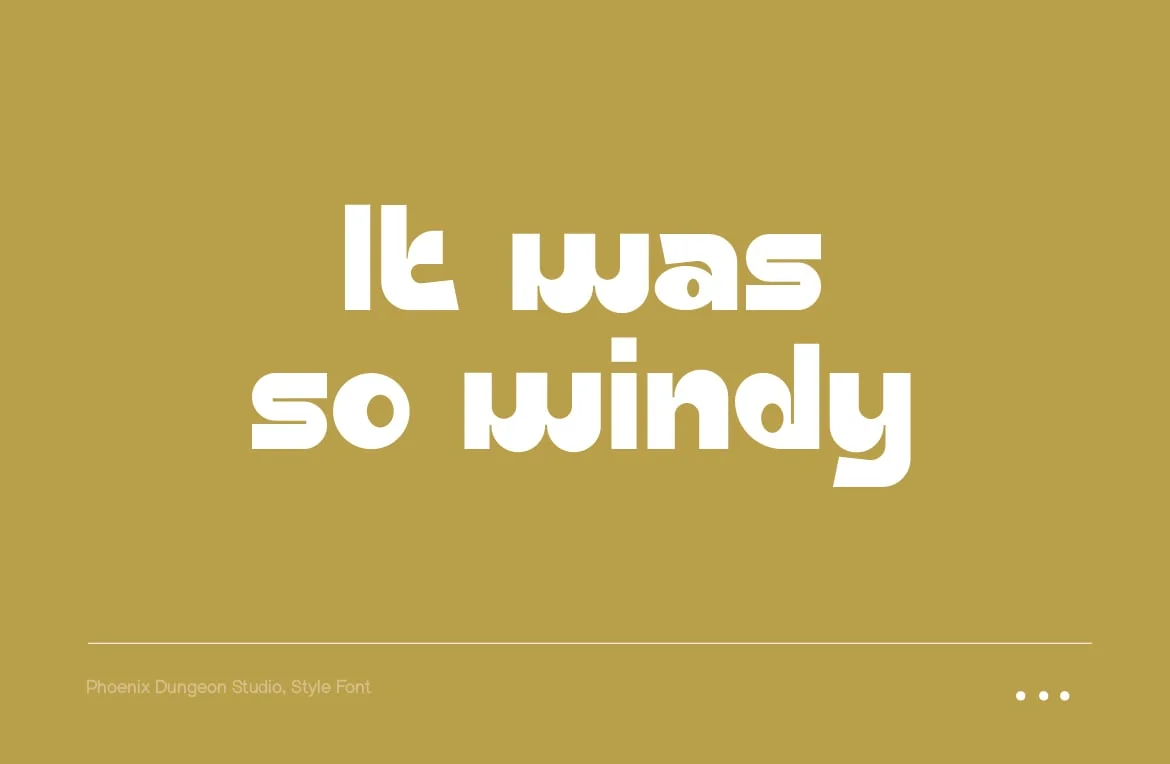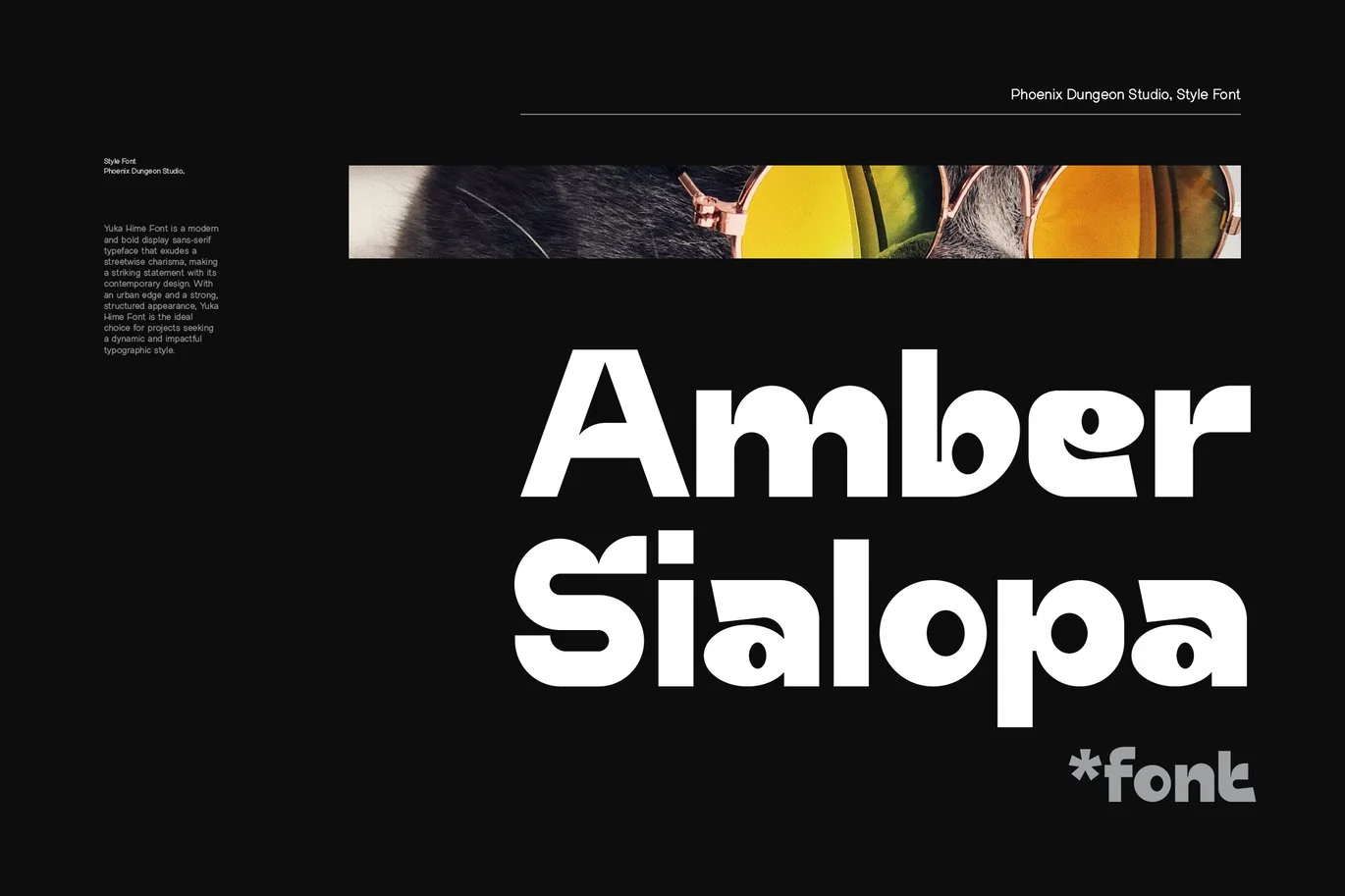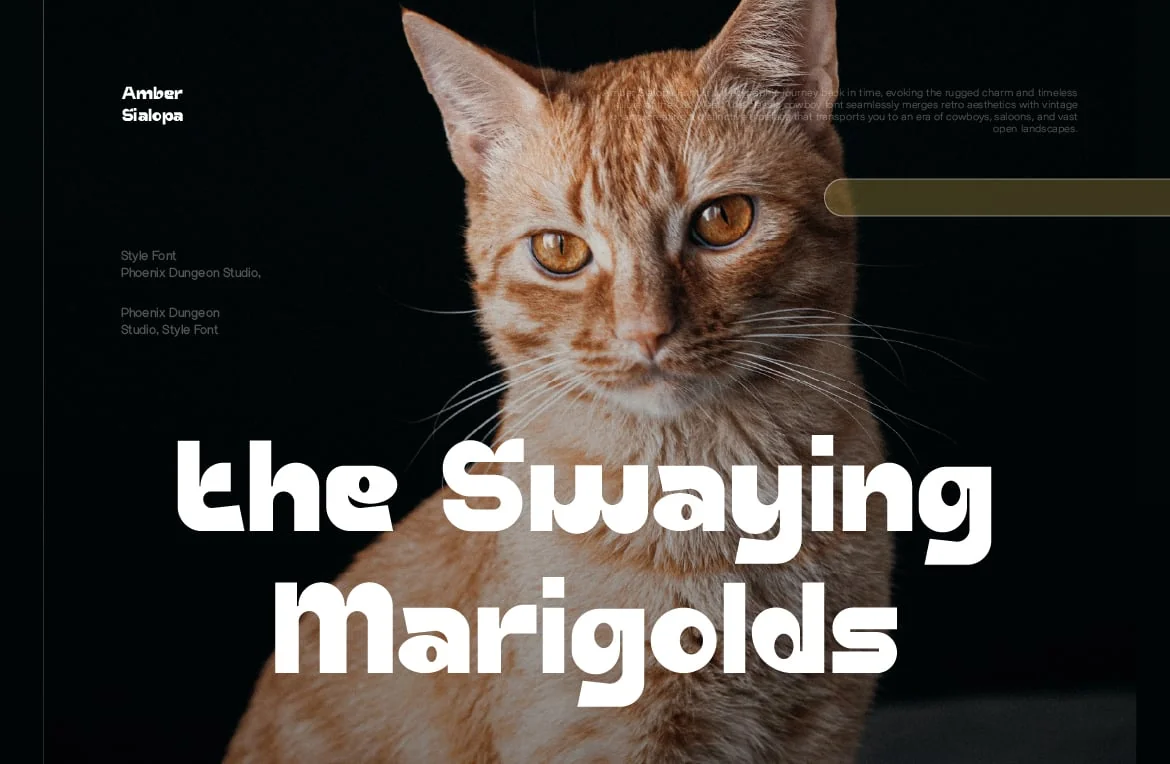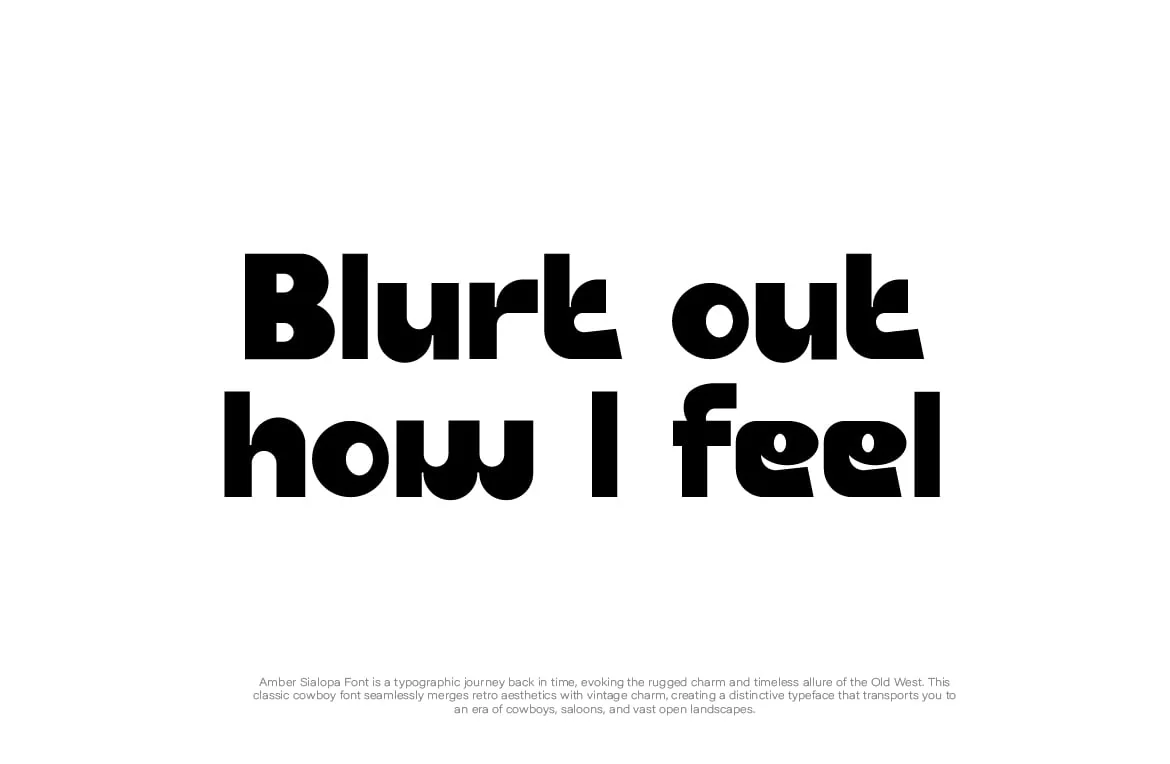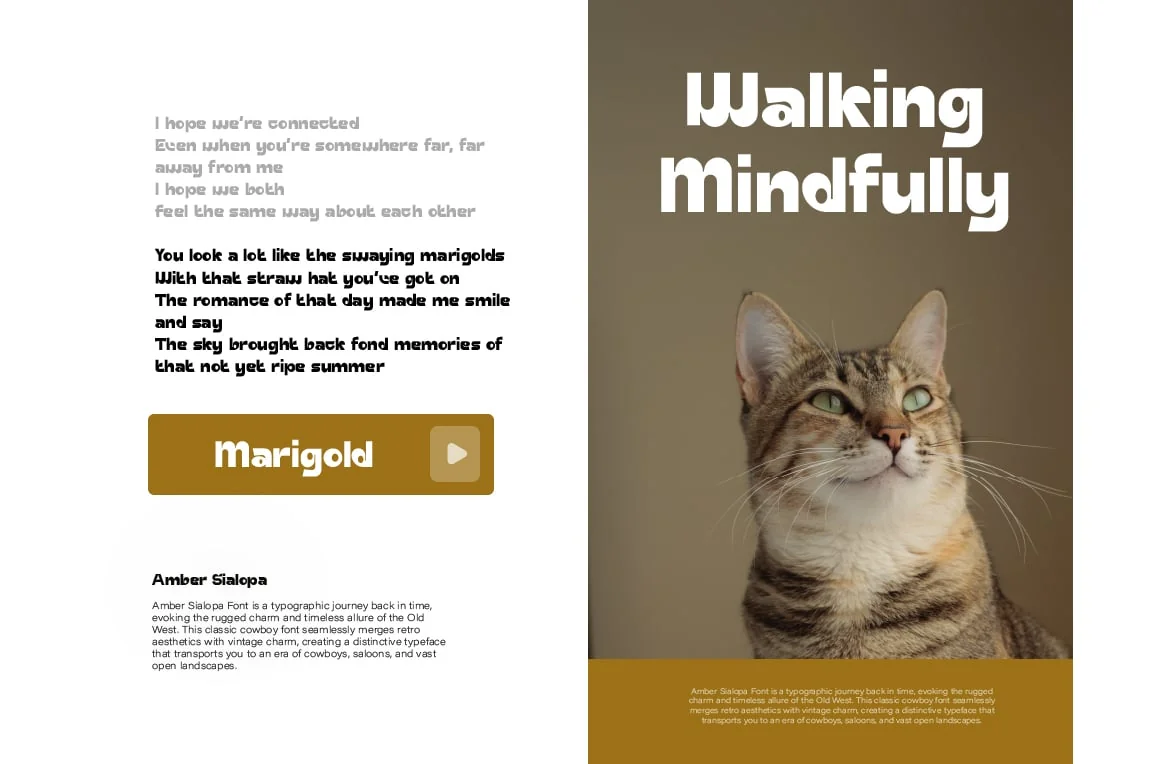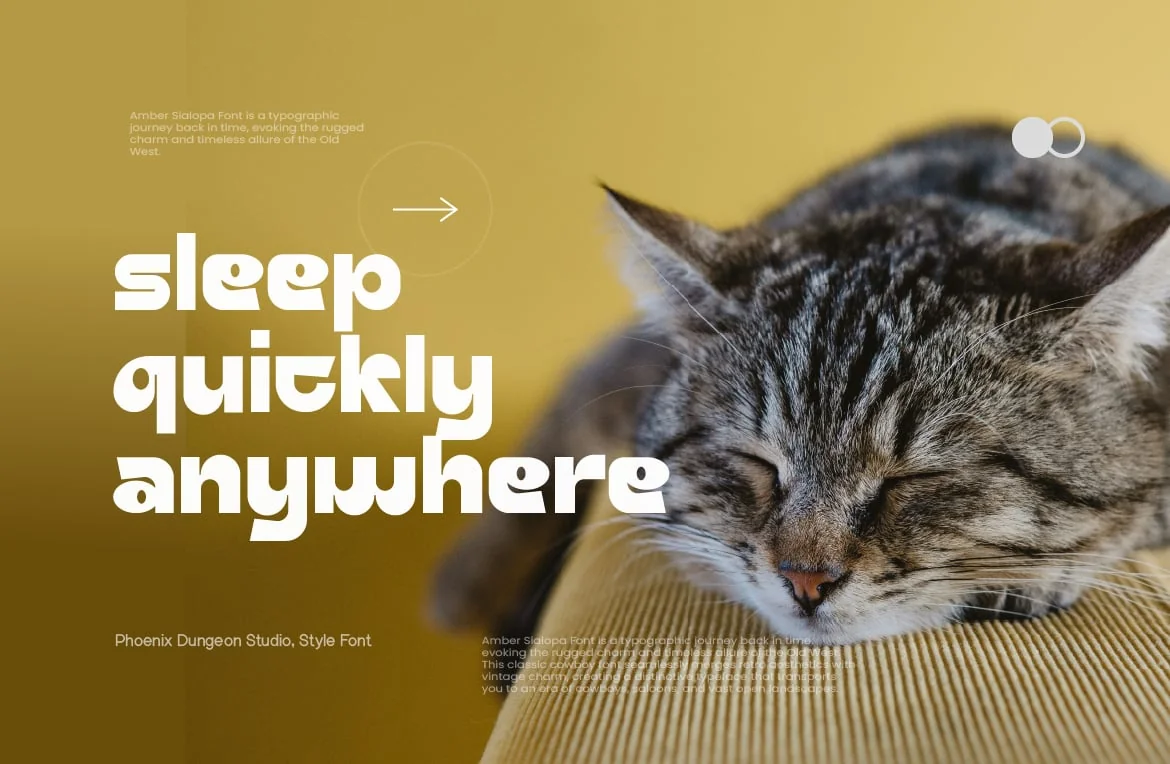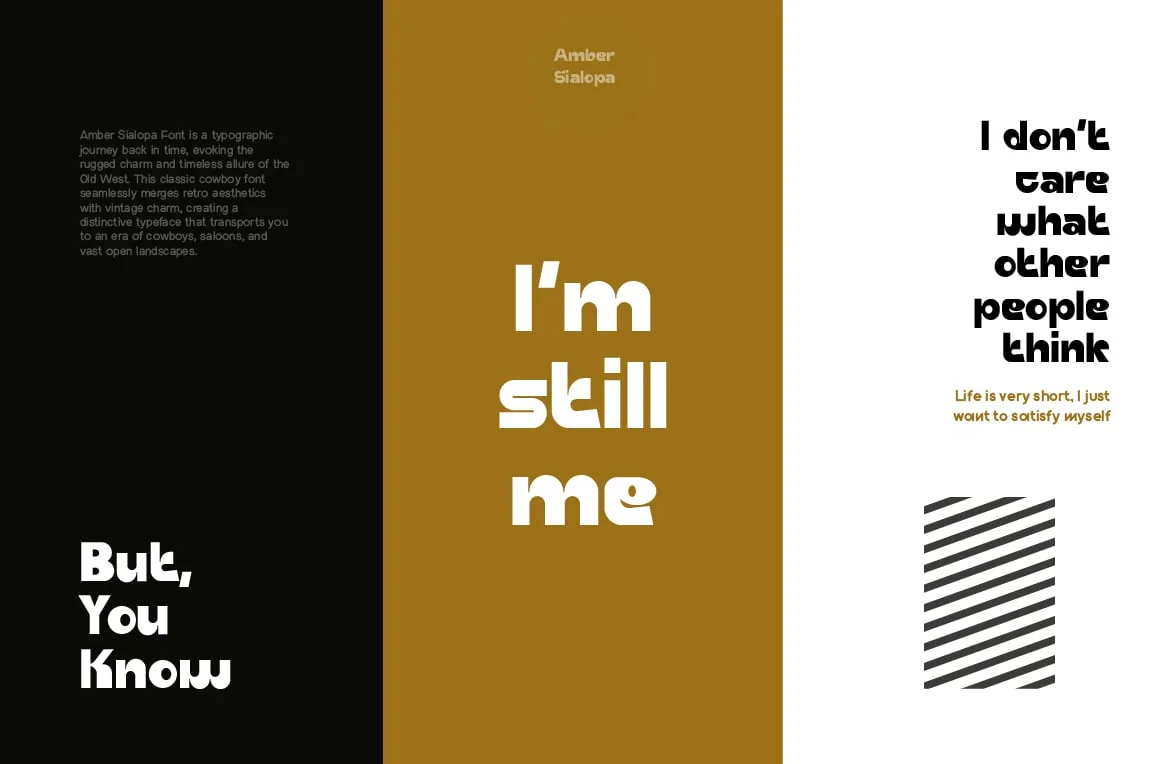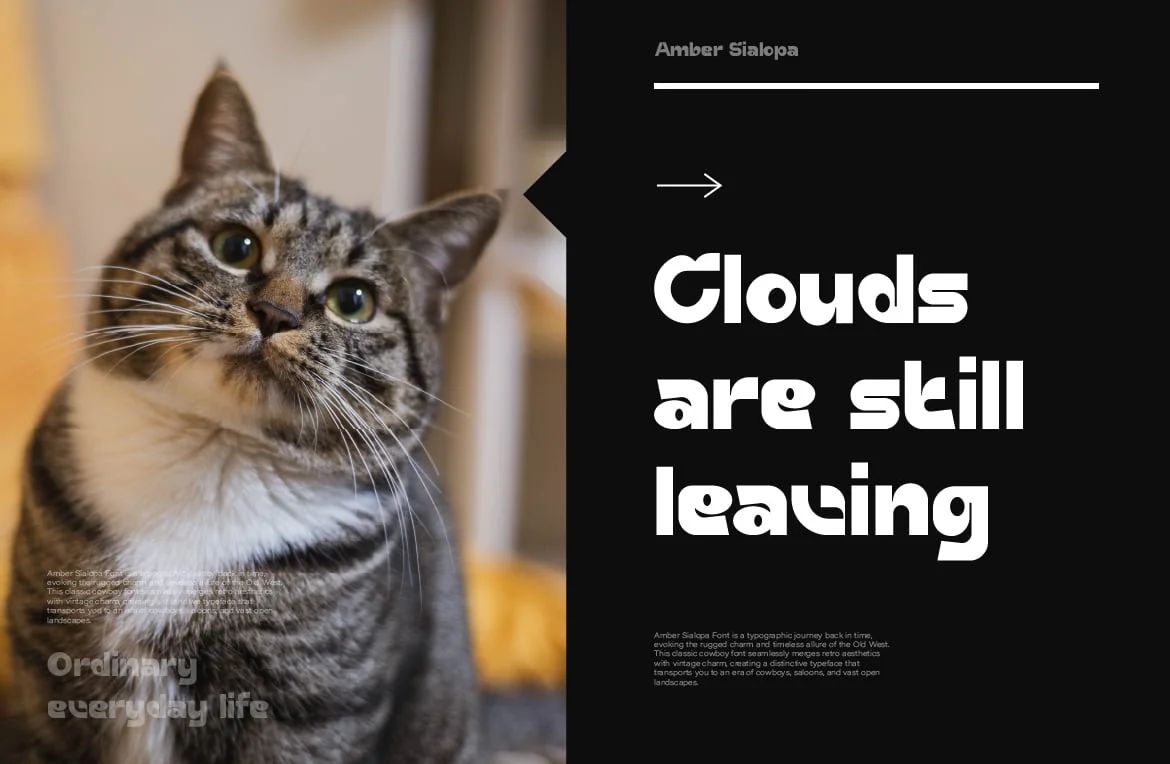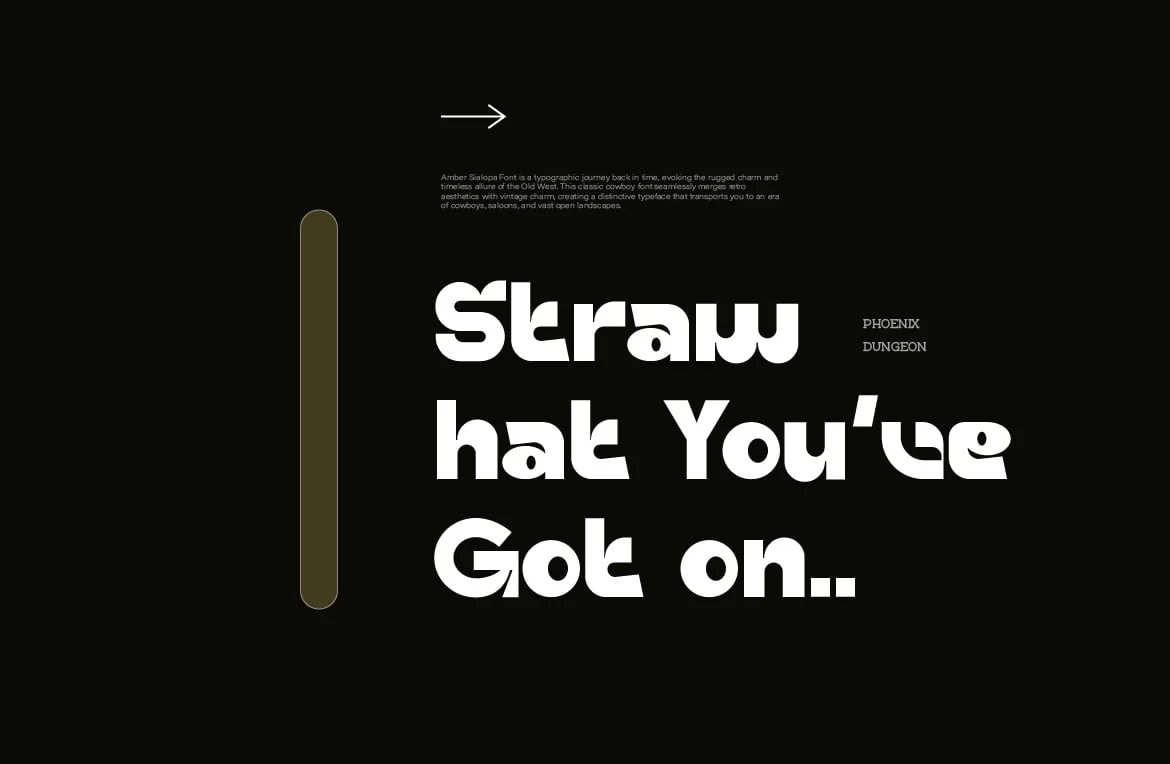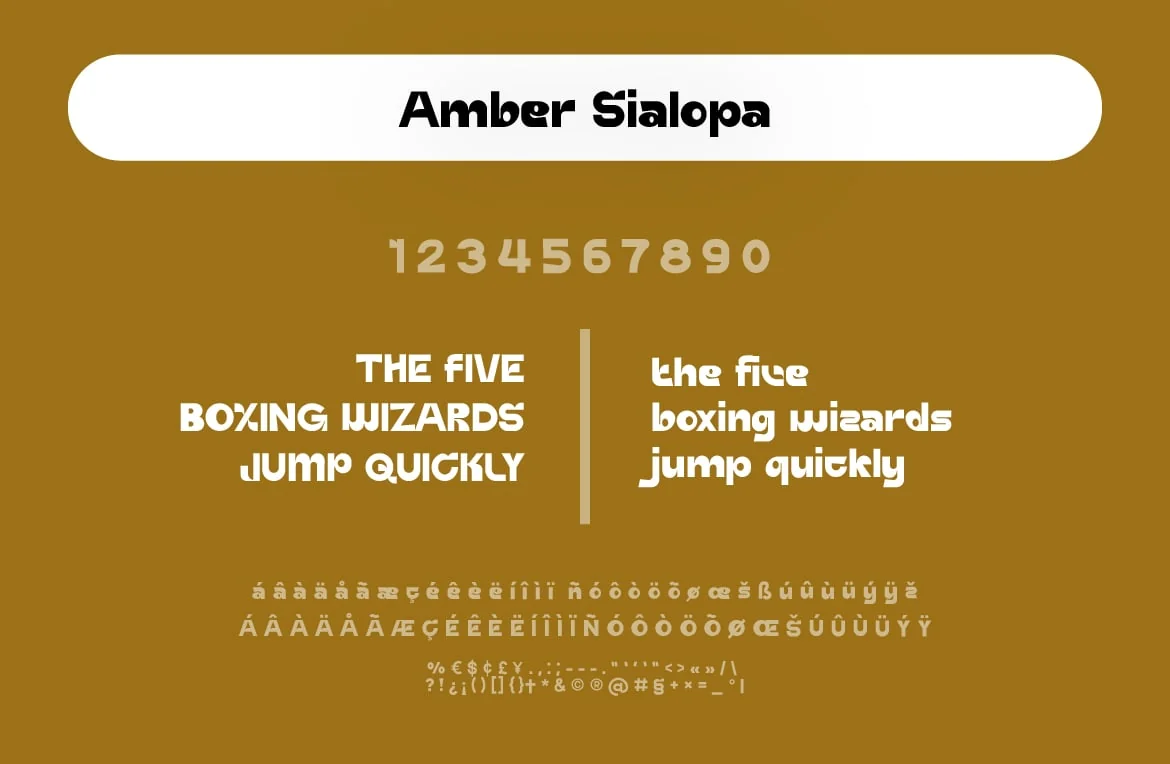
Amber Sialopa Font
Amber Sialopa Font is a typographic journey back in time, evoking the rugged charm and timeless allure of the Old West. This classic cowboy font seamlessly merges retro aesthetics with vintage charm, creating a distinctive typeface that transports you to an era of cowboys, saloons, and vast open landscapes.